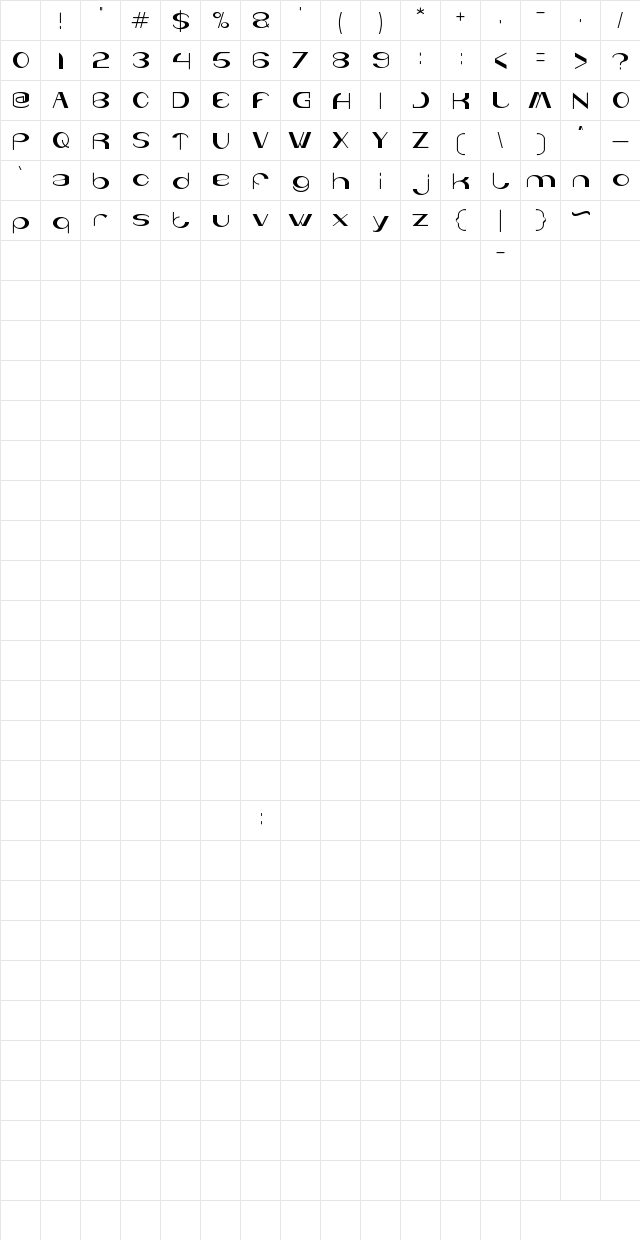
You & Me & Everyone Else Regular
Design Context for You & Me & Everyone Else
You & Me & Everyone Else is a composed and adaptable typeface that performs quietly and consistently across a wide range of design contexts.
Pro Tip: Use You & Me & Everyone Else in both headline and body roles to test its range before committing to a single application.